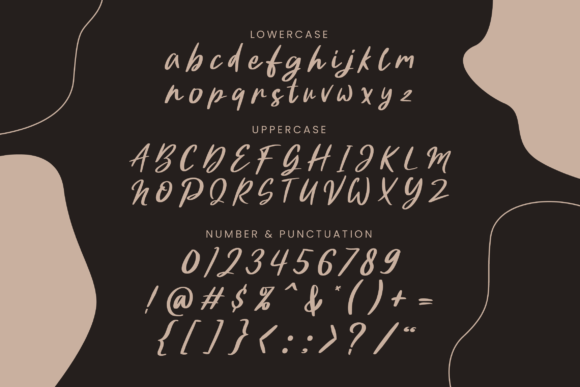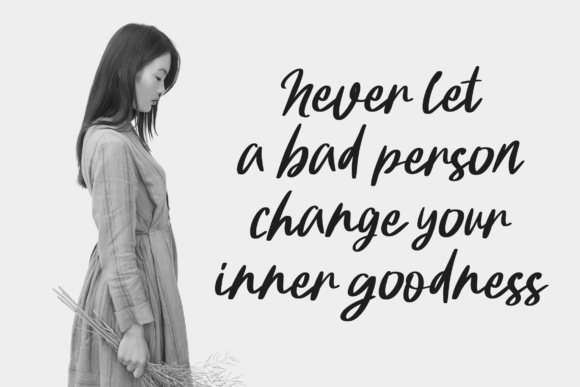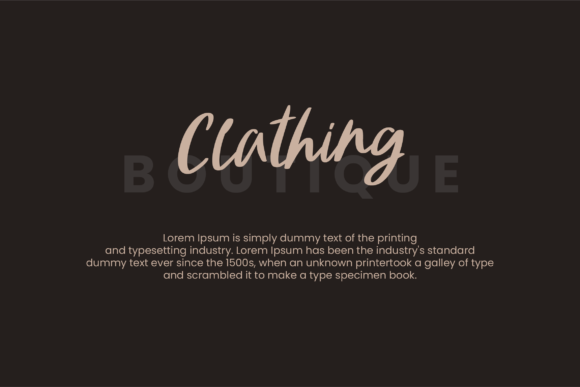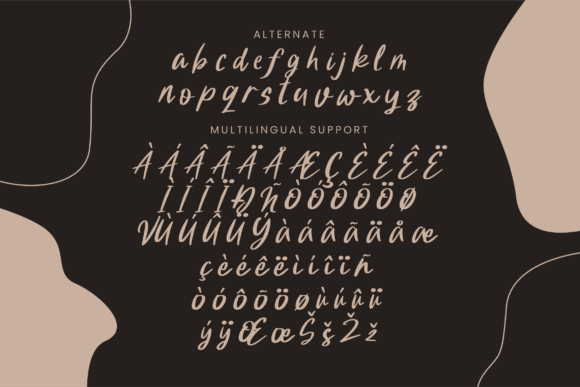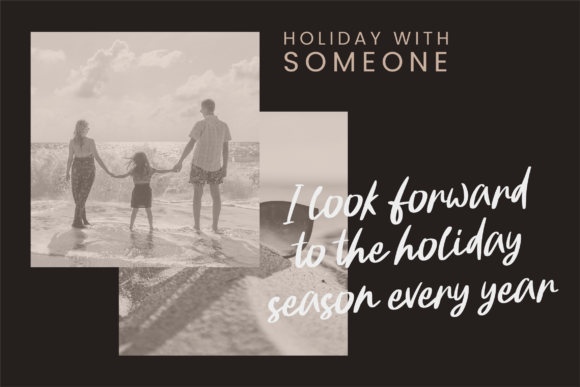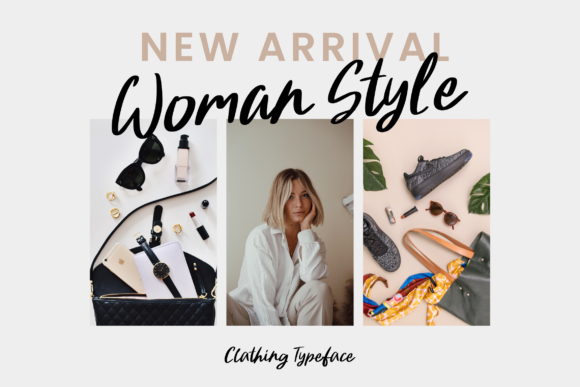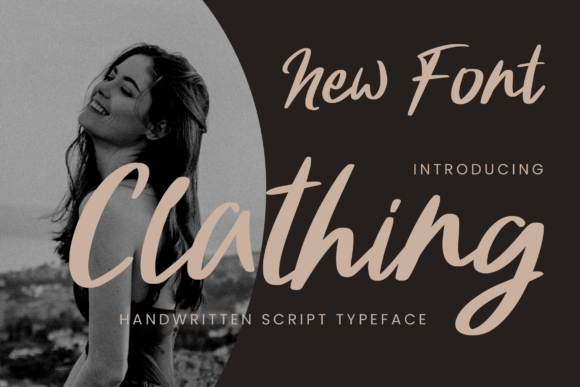
Introducing Clathing Font: The Perfect Brushed Script for Your Creative Projects
Are you tired of using the same old fonts for your design projects? Do you want to add a touch of authenticity and personality to your branding, logos, and social media posts? Look no further than Clathing Font, a beautiful brushed script font that’s perfect for crafters, designers, and anyone looking to add a handwriting touch to their work.
What is Clathing Font?
Clathing Font is a unique and stylish brushed script font that’s designed to give your projects an authentic, hand-written feel. With its fluid strokes and natural texture, this font is perfect for creating beautiful and eye-catching designs that stand out from the crowd. Whether you’re working on a branding project, logo design, wedding invitation, or social media post, Clathing Font is the perfect choice.
Key Features of Clathing Font
- Brushed Script Style: Clathing Font features a beautiful brushed script style that’s perfect for creating hand-written designs.
- Authentic Vibe: This font has an authentic, natural feel that’s perfect for designers and crafters looking to add a personal touch to their work.
- PUA Encoded: Clathing Font is PUA encoded, which means you can access all glyphs and swashes with ease.
- Multipurpose: This font is perfect for a wide range of projects, including branding, logos, wedding designs, social media posts, advertisements, product packaging, and more.
Why Choose Clathing Font?
There are many fonts available for designers and crafters, but Clathing Font stands out from the rest. Here are just a few reasons why:
- Unique Style: Clathing Font has a unique and stylish brushed script style that’s unlike any other font on the market.
- Ease of Use: This font is PUA encoded, which makes it easy to access all glyphs and swashes.
- Versatility: Clathing Font is perfect for a wide range of projects, from branding and logos to social media posts and product packaging.
- High-Quality: This font is designed to be high-quality and easy to read, making it perfect for both digital and print projects.
How to Use Clathing Font
Using Clathing Font is easy! Here are just a few tips to get you started:
- Branding Projects: Use Clathing Font to create beautiful and eye-catching branding projects, including logos, business cards, and letterheads.
- Wedding Designs: This font is perfect for wedding invitations, wedding stationery, and other wedding-related designs.
- Social Media Posts: Use Clathing Font to create eye-catching social media posts that stand out from the crowd.
- Product Packaging: This font is perfect for product packaging, including labels, tags, and other packaging materials.
Tips and Tricks for Getting the Most Out of Clathing Font
Here are just a few tips and tricks for getting the most out of Clathing Font:
- Experiment with Different Sizes: Try using Clathing Font in different sizes to create visual interest and hierarchy.
- Combine with Other Fonts: This font pairs well with other fonts, so don’t be afraid to experiment with different combinations.
- Use Swashes and Glyphs: Clathing Font comes with a range of swashes and glyphs, so be sure to use them to add visual interest to your designs.